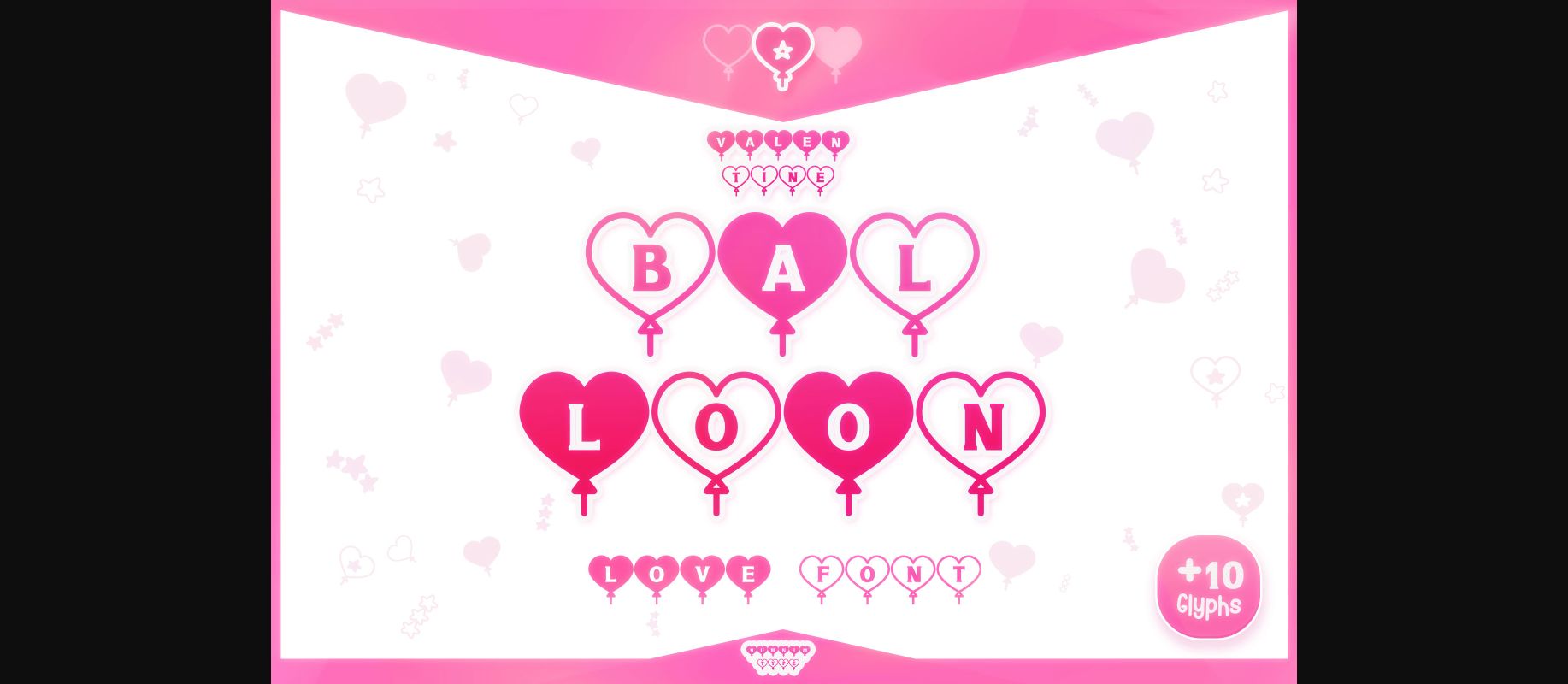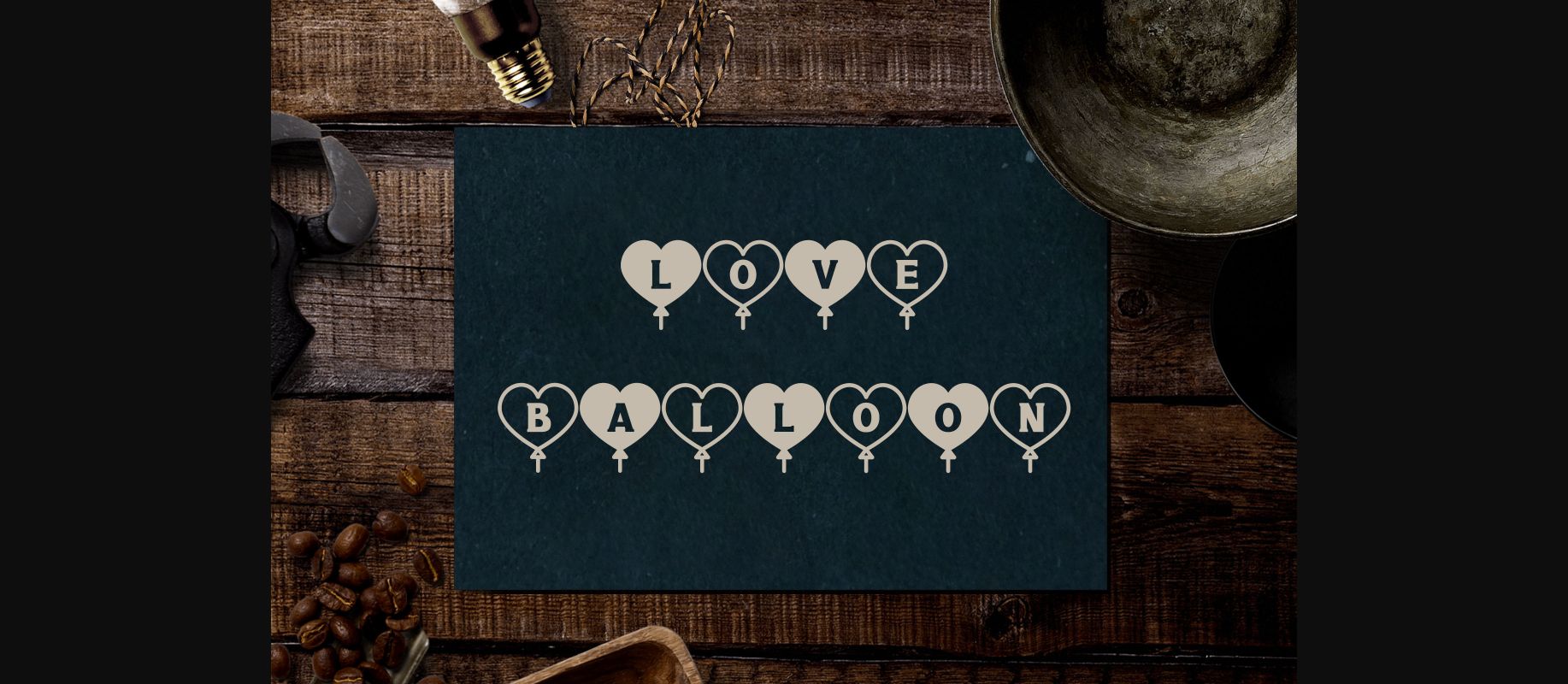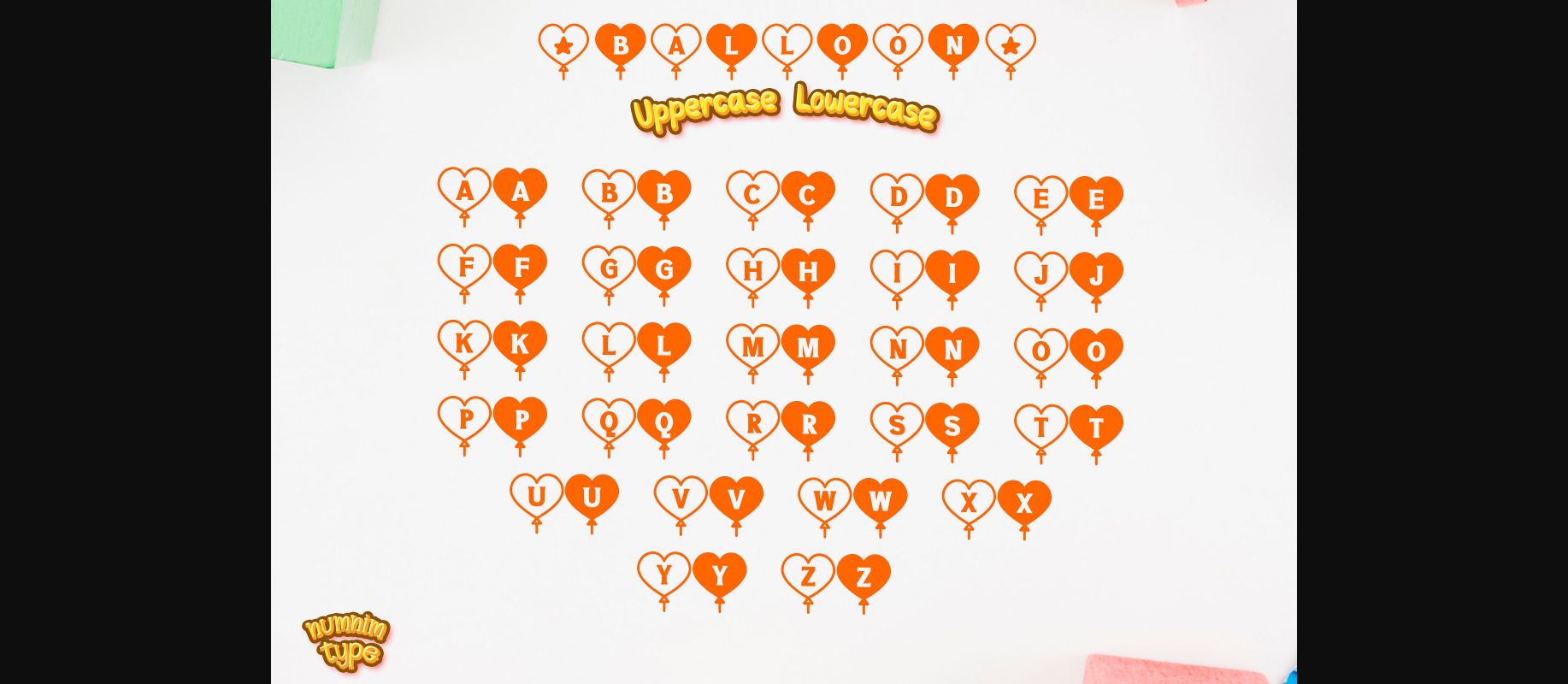
About Valentine Balloon Font
Valentine Balloon is a cool and uniquely designed decorative font. Each character is fun and playful, perfect for adding a bold accent to your designs! This font is suitable for Valentine’s Day and lover-related projects. You can see that this cute font includes letters shaped as heart balloons. You can use them to create stickers, mugs, t-shirts, ornaments, Valentine’s cards, event invitations, and more.